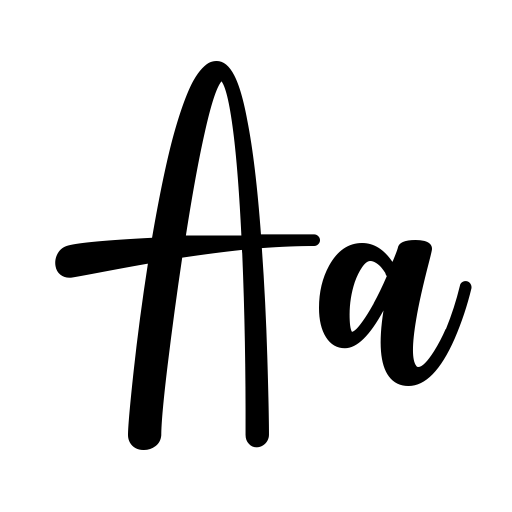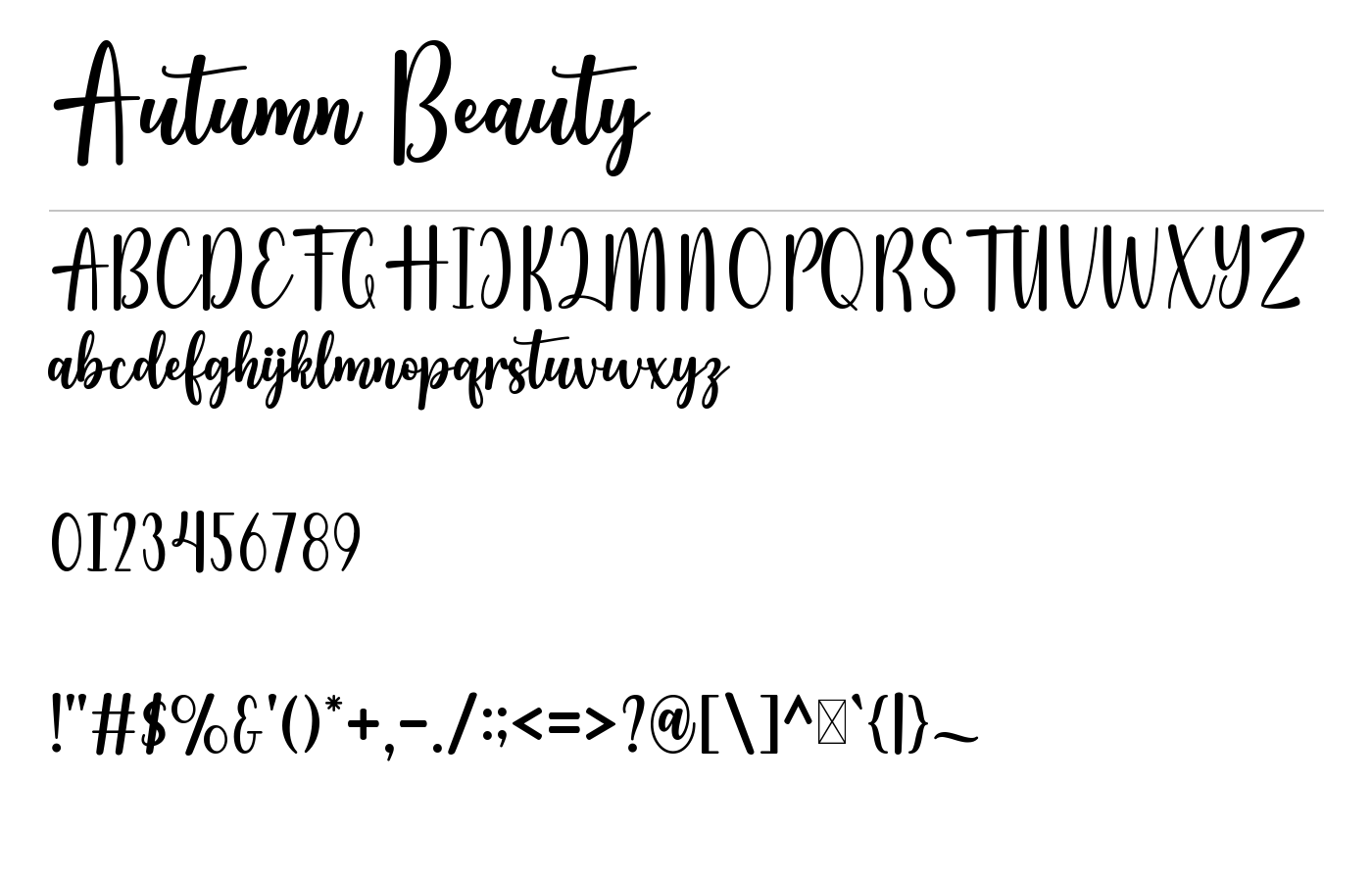
Autumn Beauty is a playful and elegant script-inspired sans serif font with a warm, handwritten feel. Its smooth, flowing letterforms combined with tall, narrow uppercase characters and a lively lowercase set make it perfect for creative branding, invitations, and lifestyle projects that want a friendly yet refined look. This font works beautifully in headlines and decorative text where personality and charm are key.
Autumn Beauty Font
About Autumn Beauty Font
| Font family | Autumn Beauty Font |
| Designer | Wahyu Setiyawan |